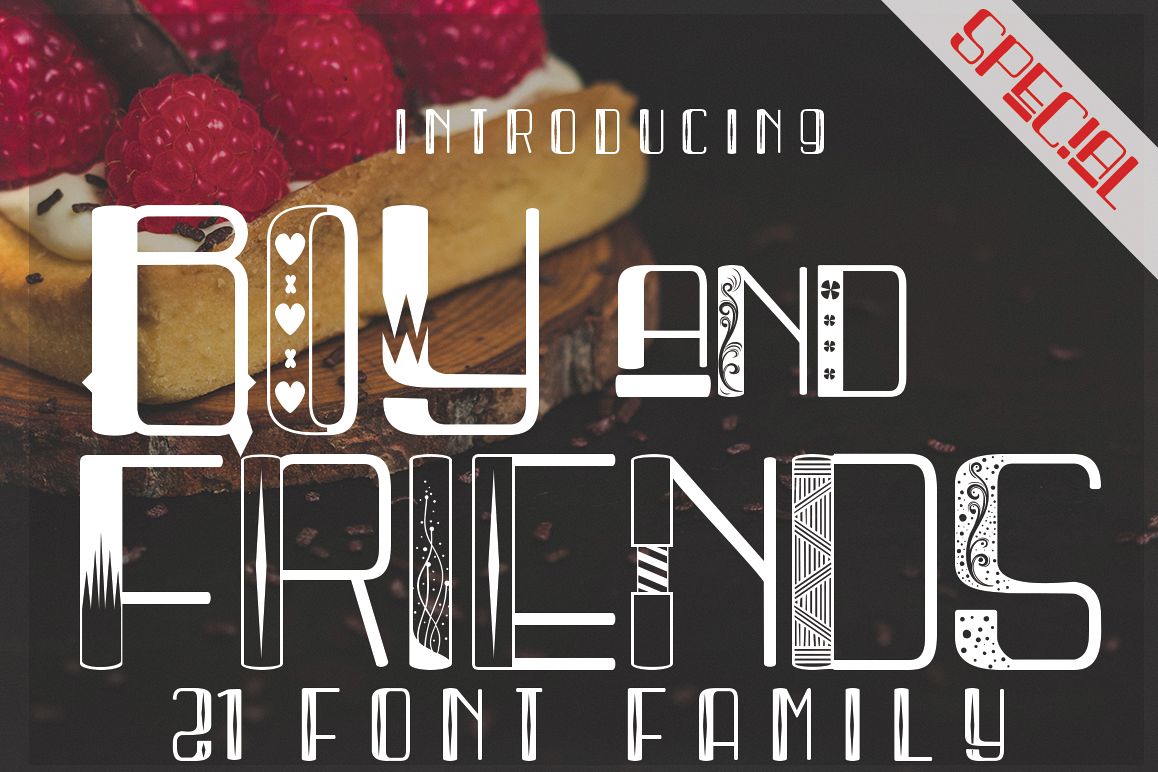
BOY AND FRIEND
BOY AND FRIEND This font was designed by handwriting, and it has a modern
and unique forms of calligraphy, the writing style is very natural and multiple